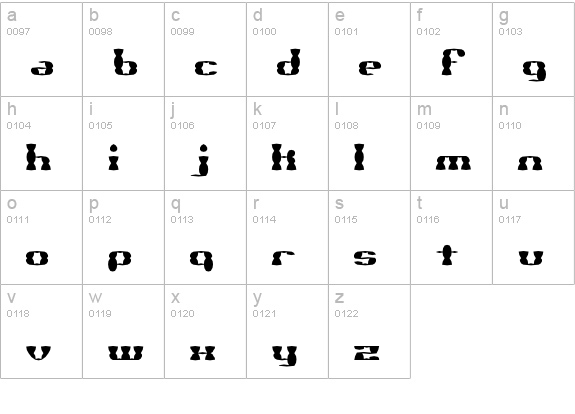
Brass Knuckle SS BRK font is a bold and striking typeface that exudes power and strength. With its sharp edges and industrial design, this font is perfect for creating eye-catching headlines, logos, and posters. The unique combination of brass knuckle-inspired elements and a sleek, modern style sets this font apart from the rest. Best of all, Brass Knuckle SS BRK font is available for free download at FontsMarket.com. Whether you're a designer looking to add a touch of edginess to your projects or a creative individual seeking a font that makes a statement, Brass Knuckle SS BRK font is sure to make an impact. Download it today and unleash the power of this dynamic font in your designs.